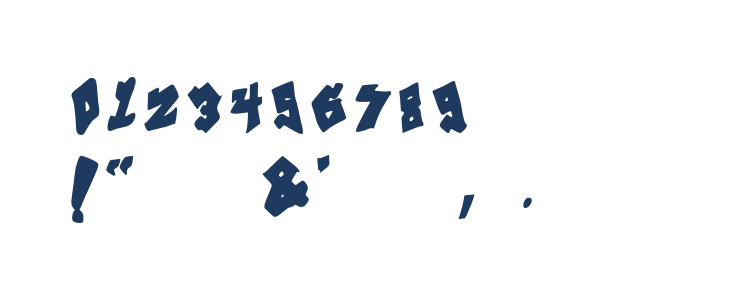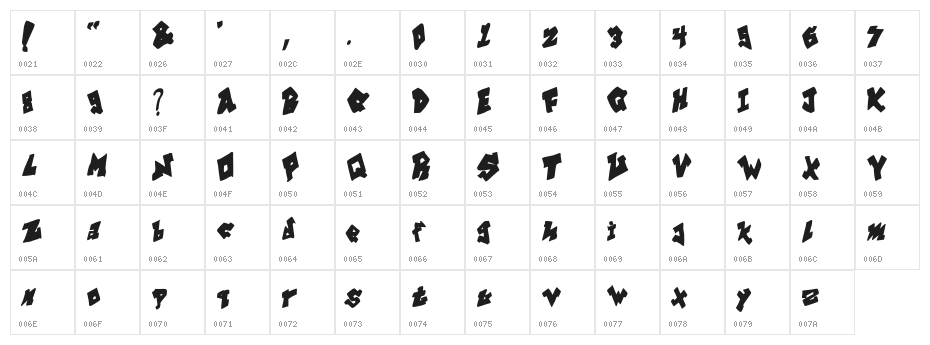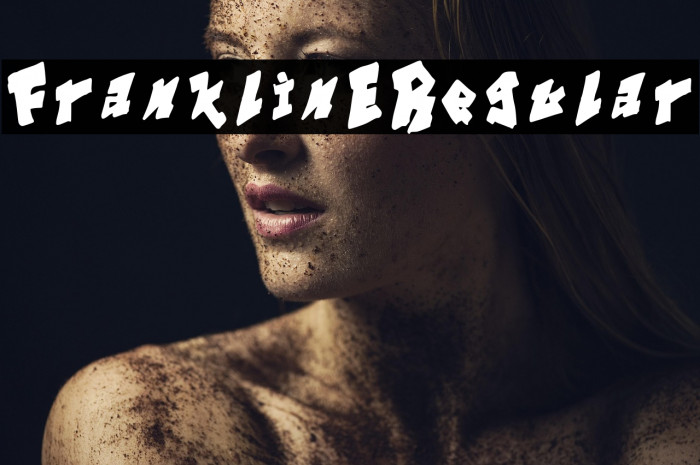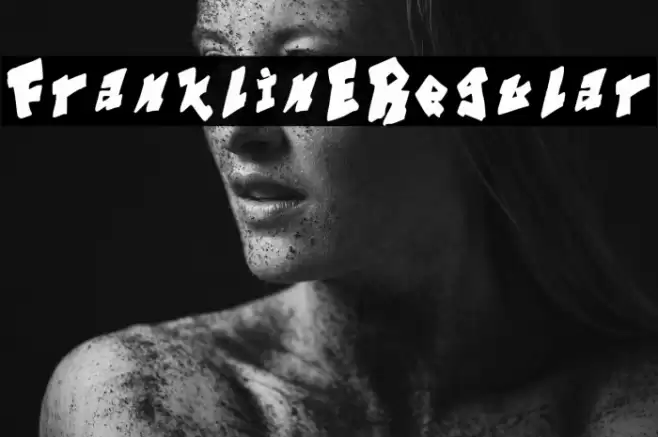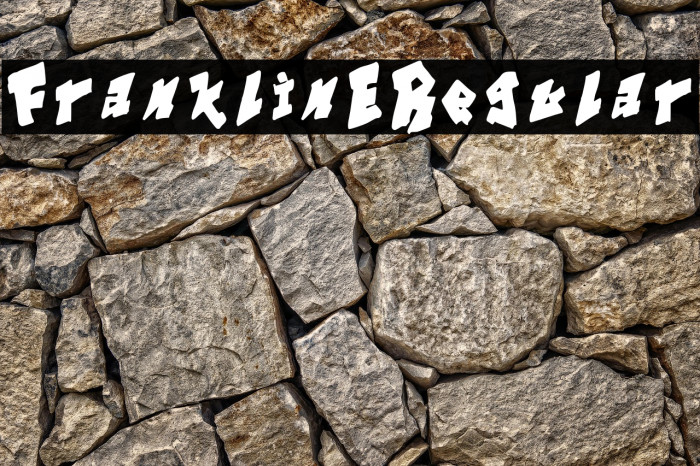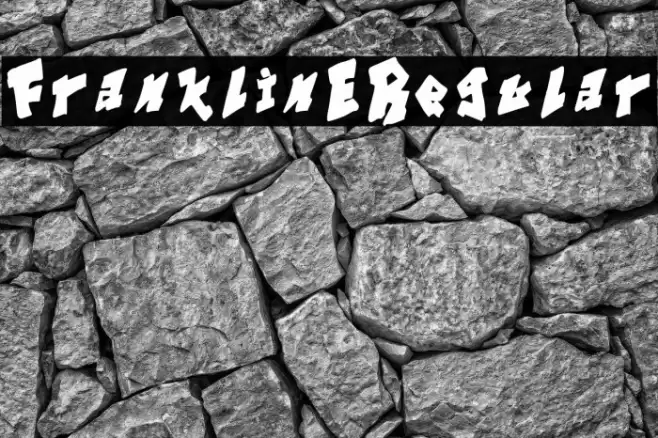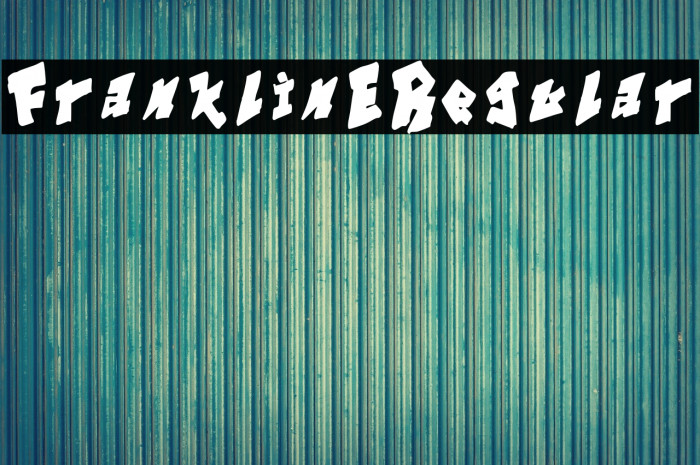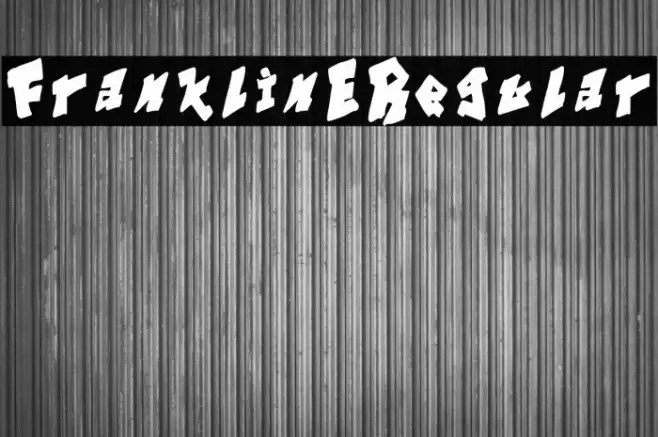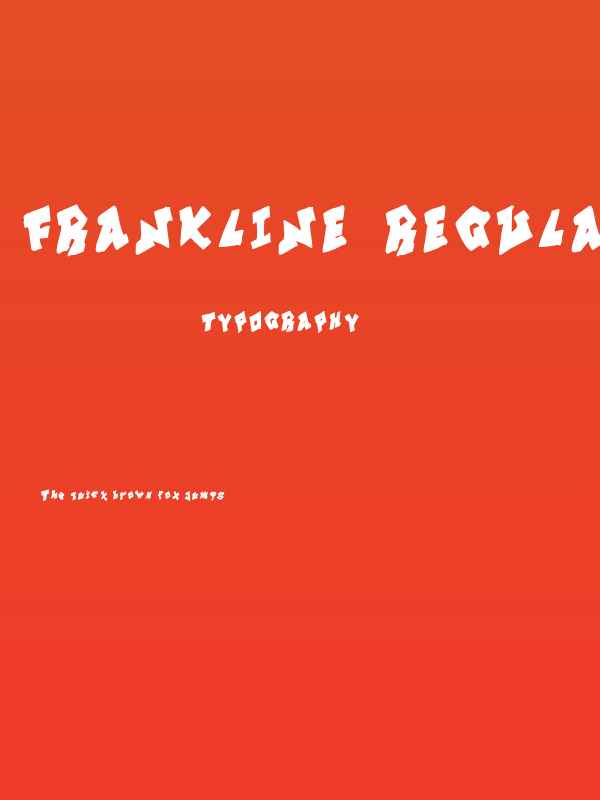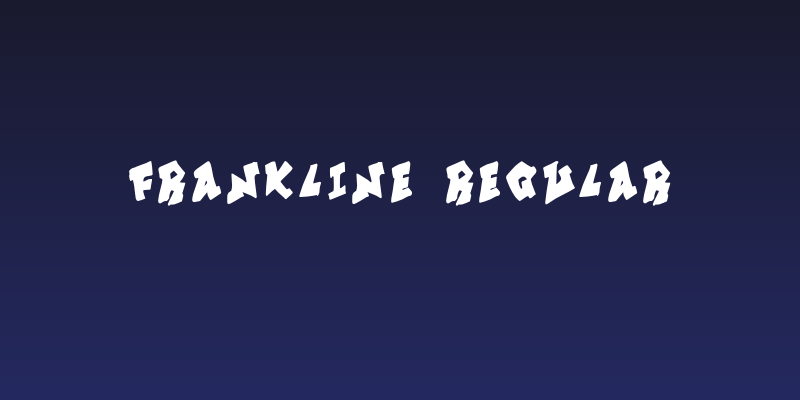
FranklinE-Regular Font
FranklinE-Regular Description
This font features a bold and dynamic style with sharp, angular edges and a slightly irregular form that gives it a unique, edgy appearance. The characters are heavily stylized, with a strong emphasis on geometric shapes and a sense of movement. The uppercase and lowercase letters maintain a consistent design, while the numbers and special characters complement the overall aesthetic. This font is eye-catching and designed to stand out, making it suitable for creative and unconventional projects.
| Proposed Projects | Ideal for posters, album covers, video game graphics, and branding for edgy or modern products. |